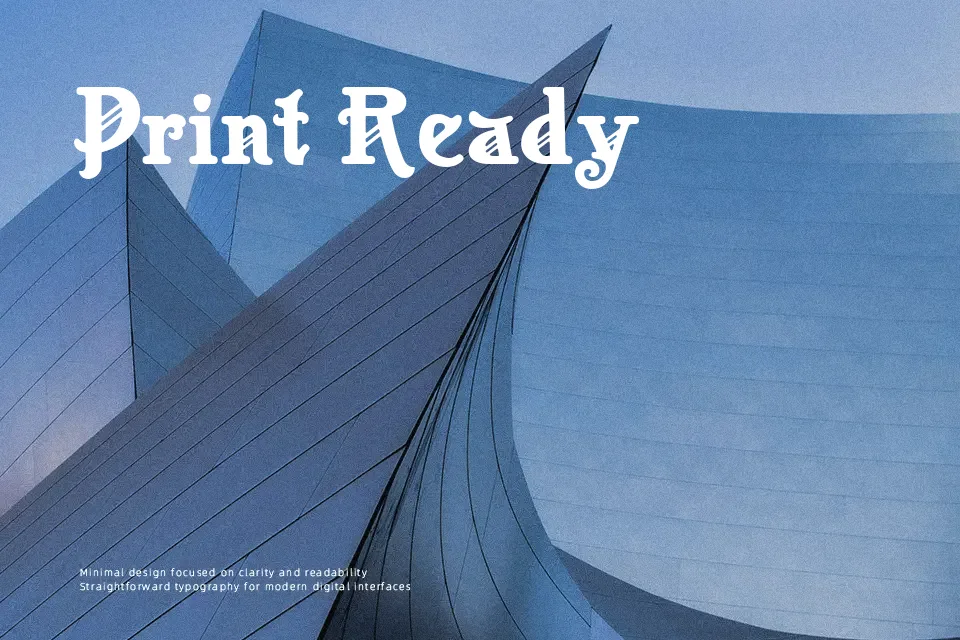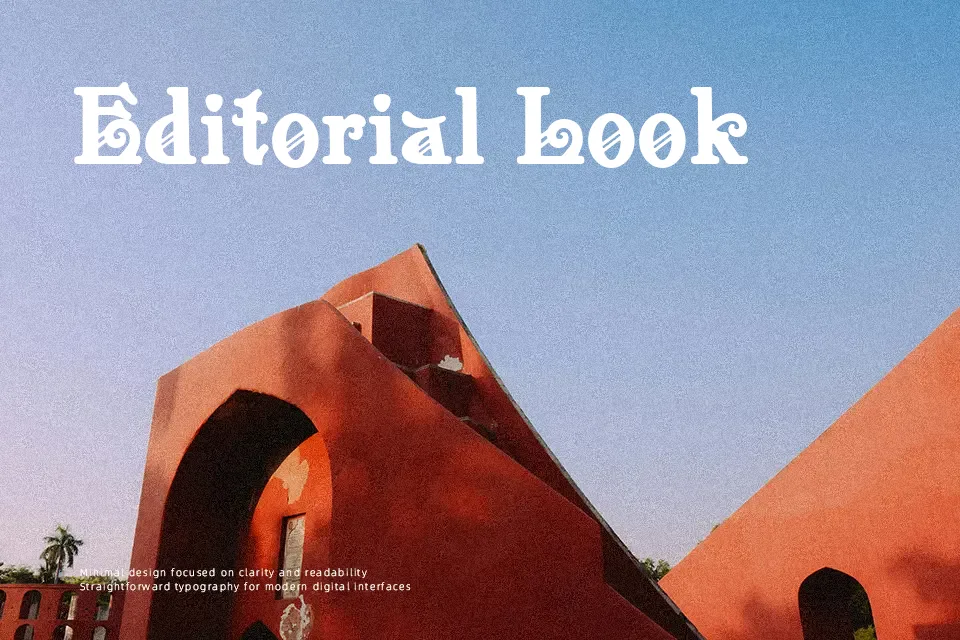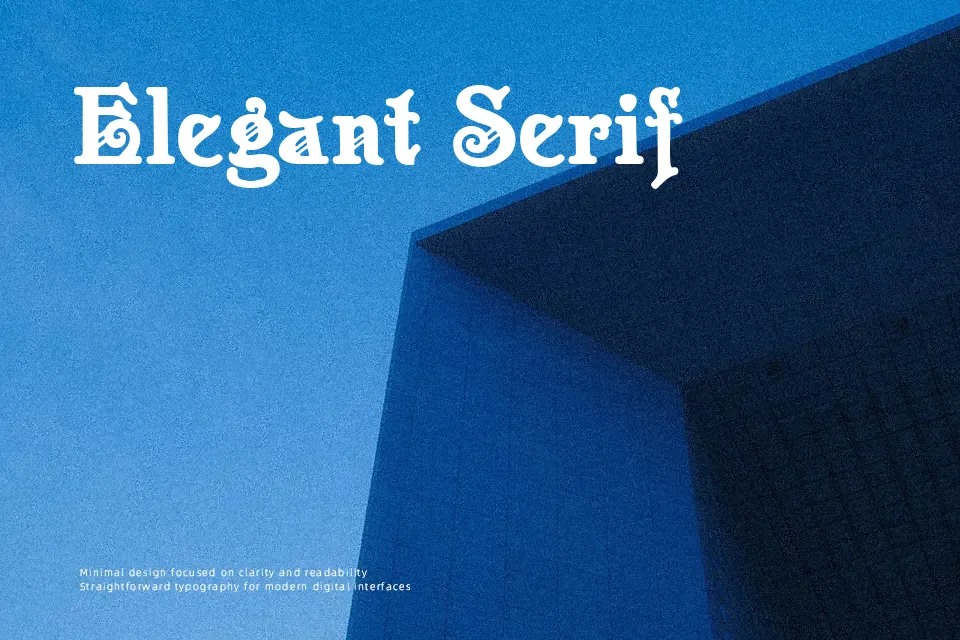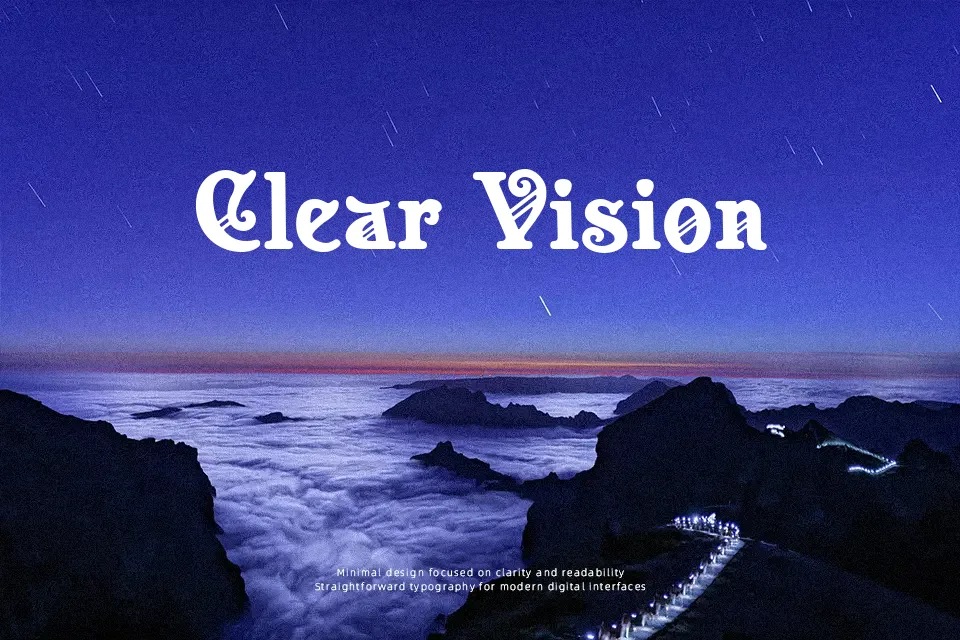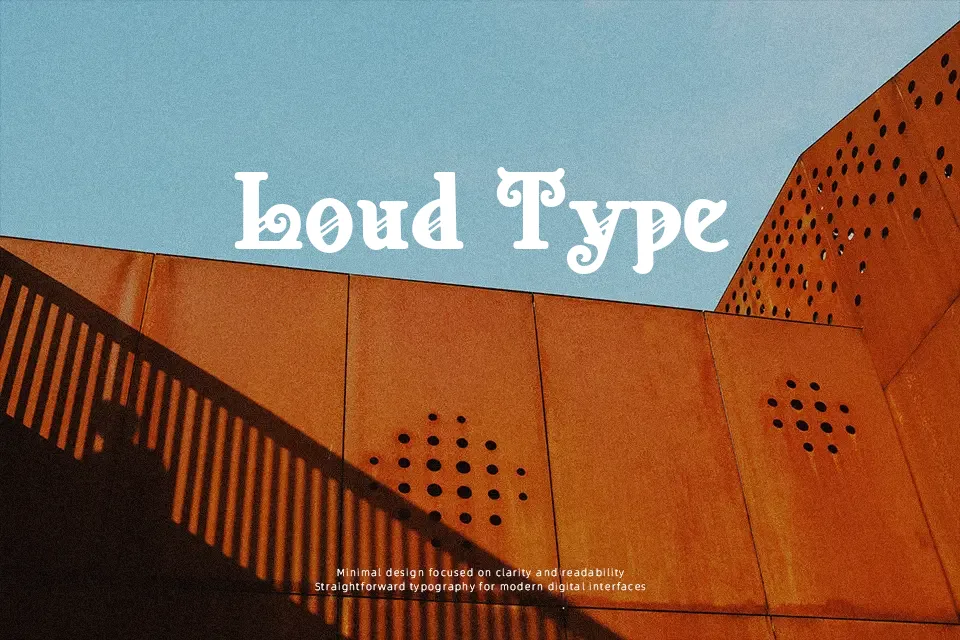
Apollo ASM Font
Apollo ASM embraces the ornate visual language of Art Nouveau with elaborate swirls and decorative flourishes wrapping around each character. The font exhibits high contrast between thick and thin strokes, intricate embellishments, and complex letterform structures that echo early 20th-century ornamental design. Created by Peter Wiegel in 2010, it captures the elaborate aesthetic of 1920s typography with generous spacing needed to accommodate its decorative elements. This typeface works well for vintage concert posters, retro product packaging, and boutique branding where its historical character adds authentic period flavor. However, the heavy ornamentation becomes problematic in practical applications—the intricate details blur at small sizes, making it unsuitable for body text or mobile interfaces. The decorative complexity also limits readability in longer passages, restricting its use primarily to short display applications like logos and headlines where each letterform can be appreciated individually.
– vintage concert posters and event graphics
– retro boutique branding and storefront signage
– 1920s themed wedding invitations
– decorative book covers and album art
– body text or paragraph content
– mobile app interfaces or small screen displays
– corporate reports or professional documents
– fast-reading contexts like signage or navigation
Perfect for branding, invitation, and logo, with a artistic and decorative style.